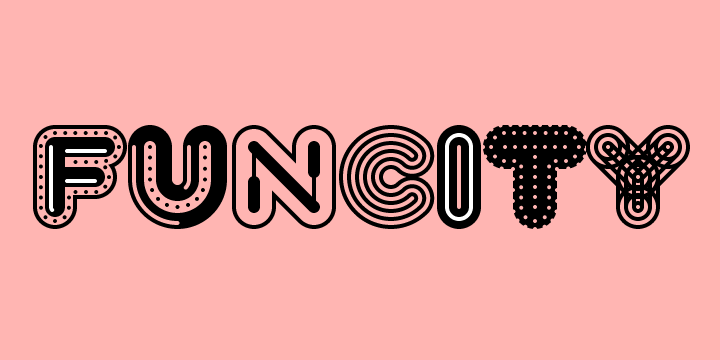
Fun City Free Download
Fun City Font Free Download
The Fun City Font is perfect for amusement park signage, children's entertainment venues, family fun centers, arcade game graphics, carnival promotions, theme park materials, playground equipment branding, and vibrant city tourism campaigns. This energetic typeface works exceptionally well in applications where urban excitement and family entertainment need to be emphasized, making it ideal for entertainment businesses that want to communicate joy, adventure, and metropolitan fun through colorful, city-inspired typography.
What makes Fun City Font exciting is its metropolitan energy and playful urban spirit that captures the essence of city adventure and family entertainment excitement. The font's dynamic letterforms and city-inspired character design create an atmosphere of endless possibilities and urban exploration, making it perfect for brands that want to evoke the thrill of city discovery and the joy of metropolitan adventures. Its vibrant presence ensures that every application feels like an invitation to explore with genuine city excitement and family-friendly appeal.
The Fun City Font family typically includes regular, bold, and extra-bold weights, often featuring skyline elements, urban symbols, and city-themed decorations that enhance its metropolitan appeal. Many versions include building motifs, street sign variations, and specialized characters that provide designers with comprehensive tools for creating authentic city-themed design projects with genuine urban energy and family entertainment sophistication.
For designers working on projects that require urban authenticity and family entertainment credibility, Fun City Font Free Download delivers exceptional metropolitan appeal. Its ability to instantly communicate city excitement and family fun makes it an invaluable choice for entertainment venues, tourism boards, and any project requiring typography that embodies the dynamic energy of urban exploration, the joy of family adventures, and the vibrant spirit of metropolitan entertainment and city discovery experiences.